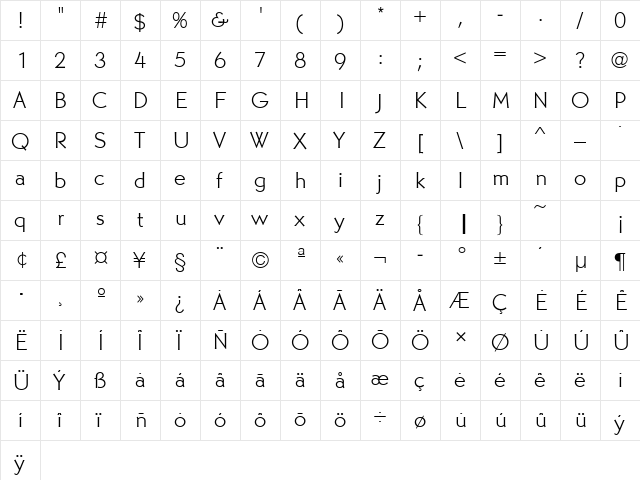
MartinGotURWTLig Regular Font Preview
MartinGotURWTLig Regular
Design Context for MartinGotURWTLig Typeface
MartinGotURWTLig is a composed and adaptable typeface that performs quietly and consistently across a wide range of design contexts.